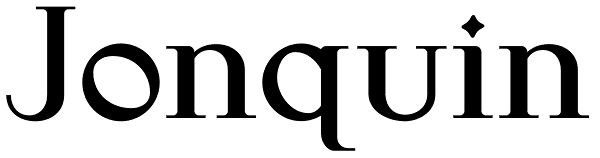
Jonquin
Jonquin was inspired by some hand lettering seen on a World -War One recruiting poster. It's a family of three faces for display work and headings designed to be used readily as an 'All-Capitals' face as well as in upper and lower case format...
Jonquin
Jonquin Incised
Jonquin Bold